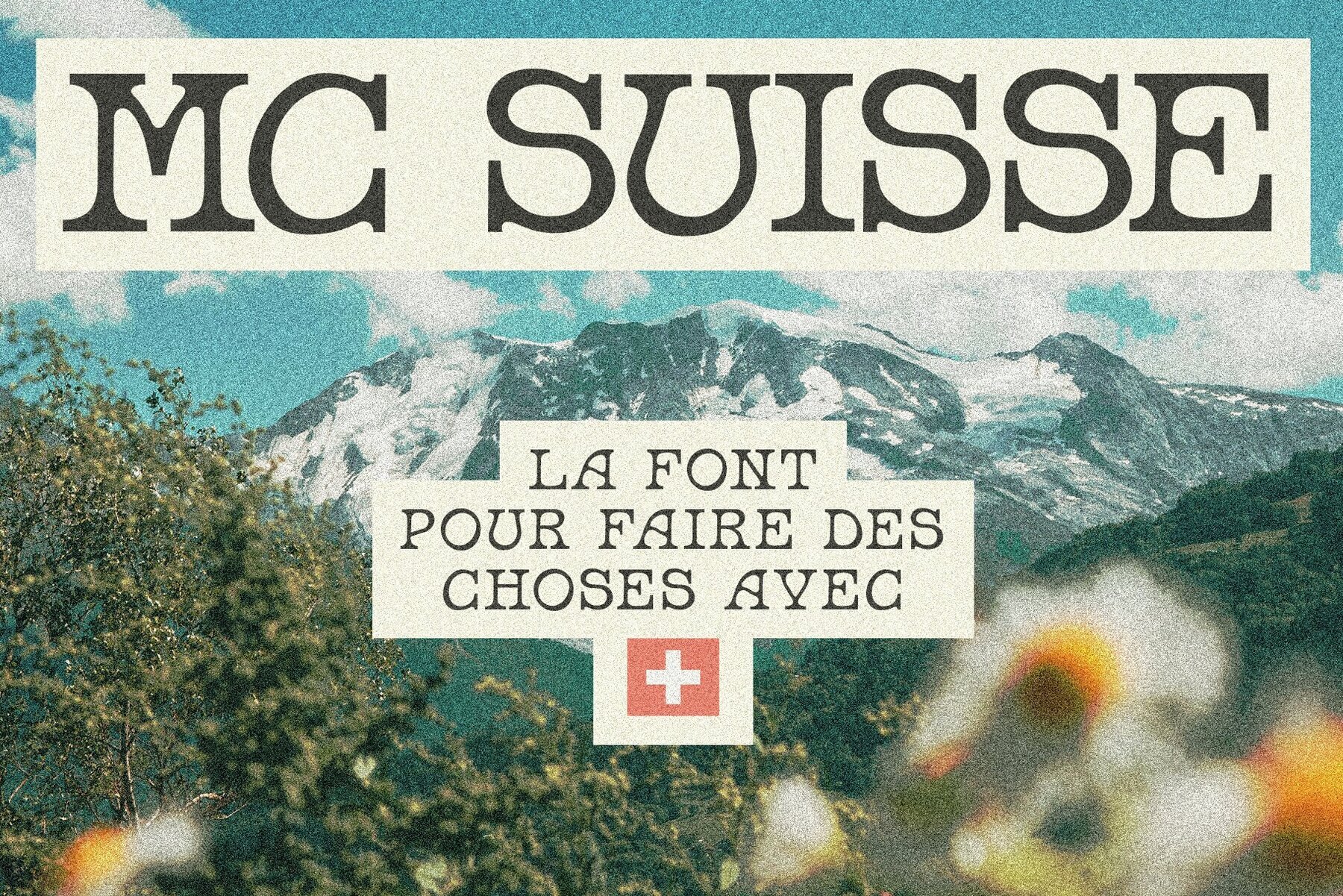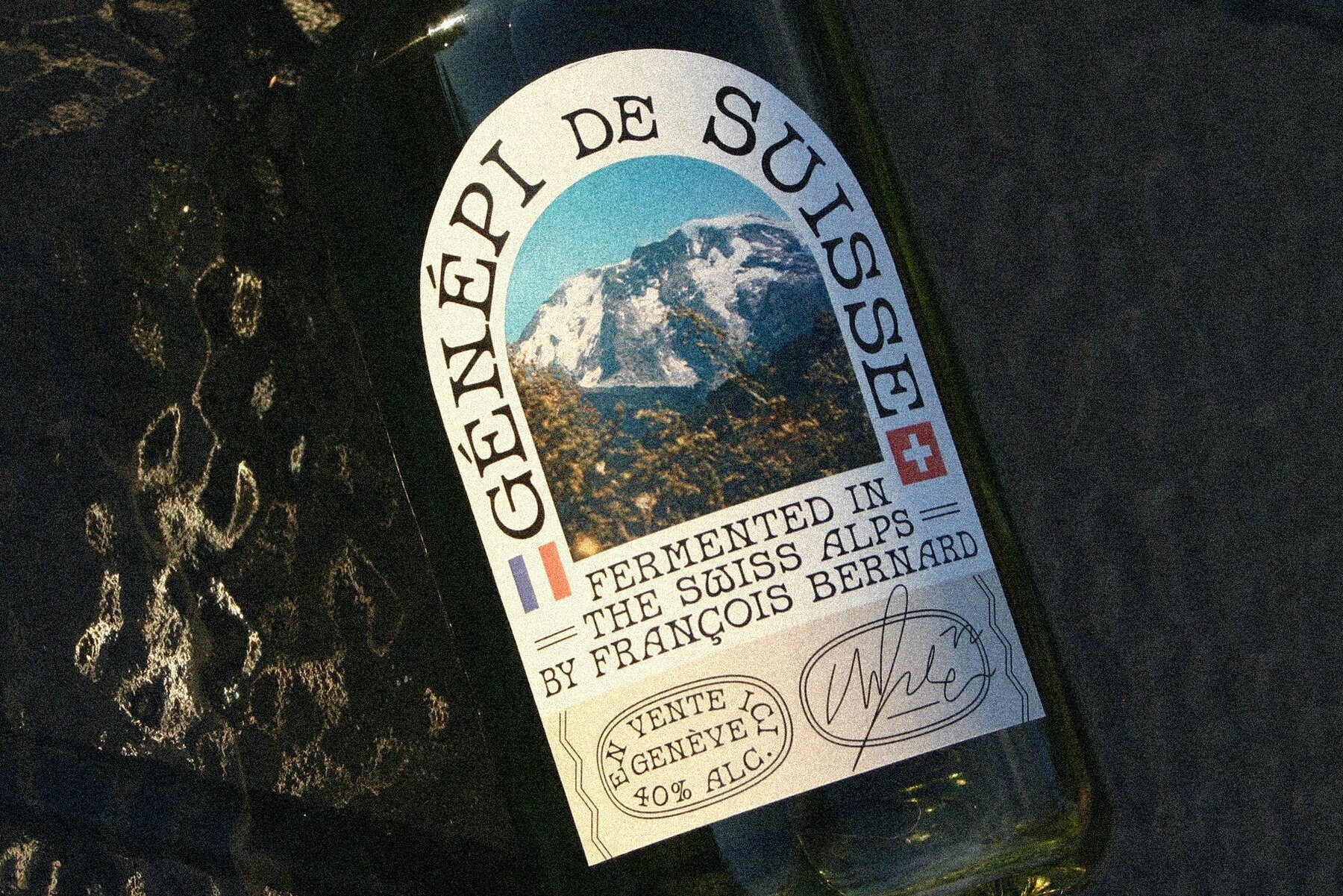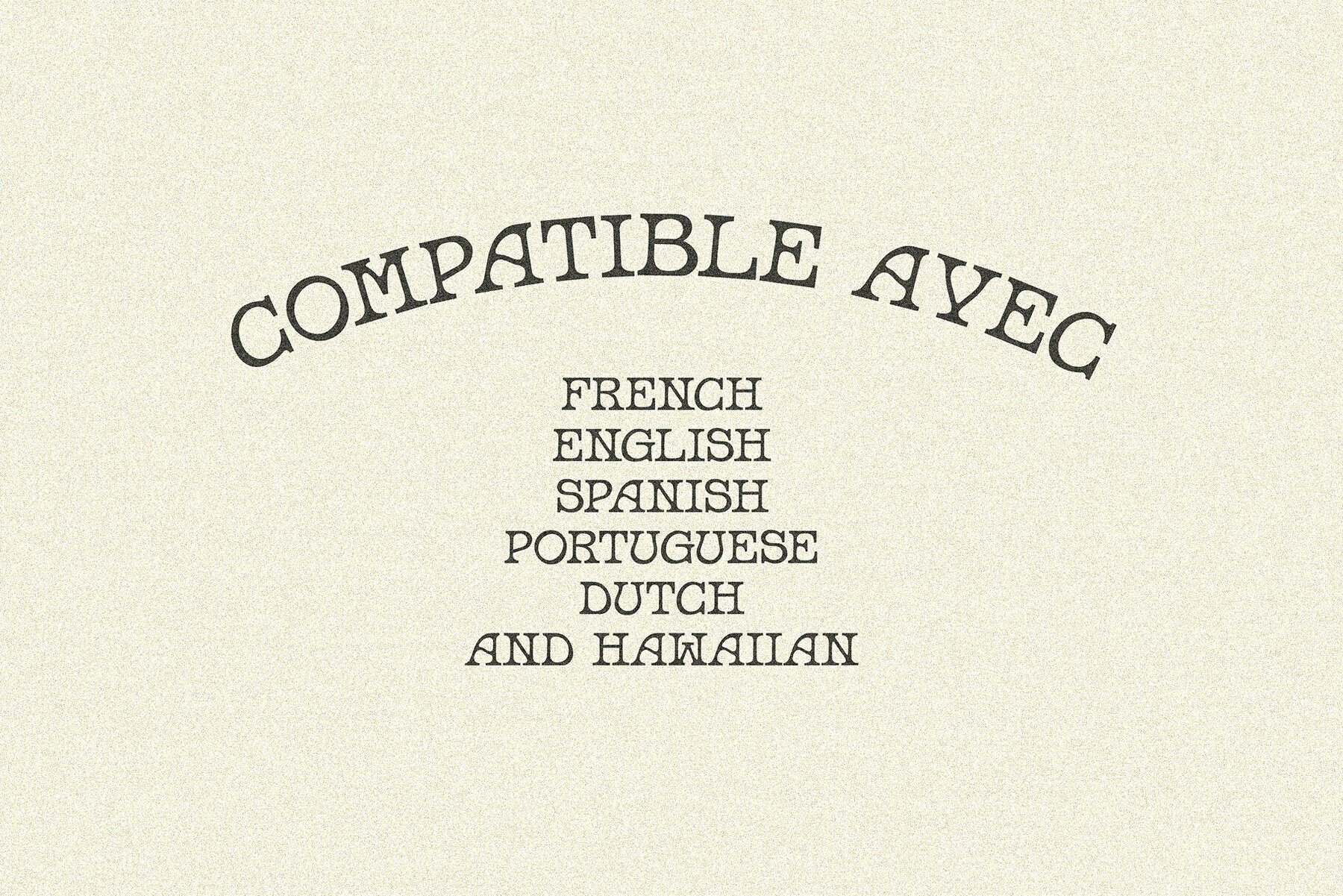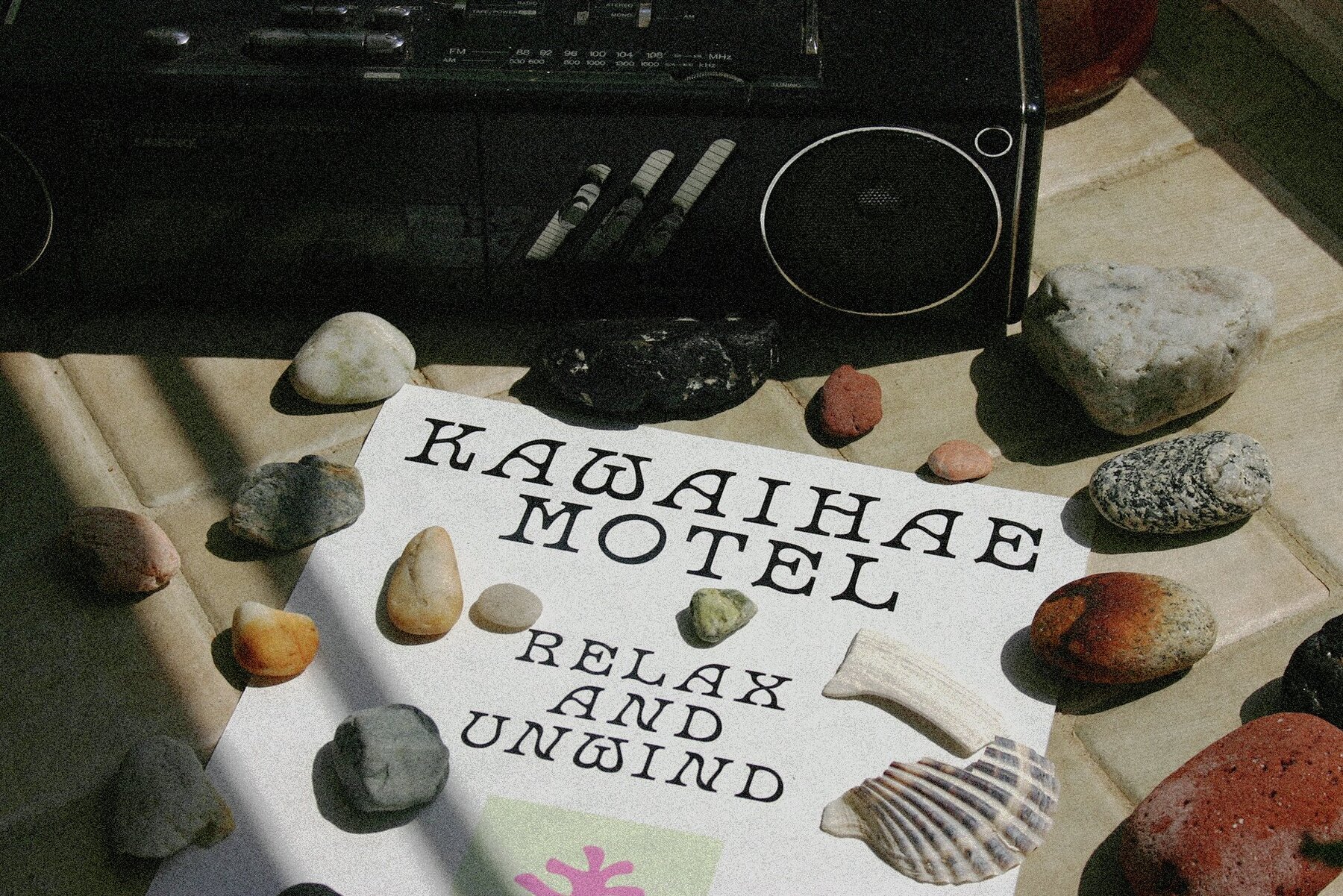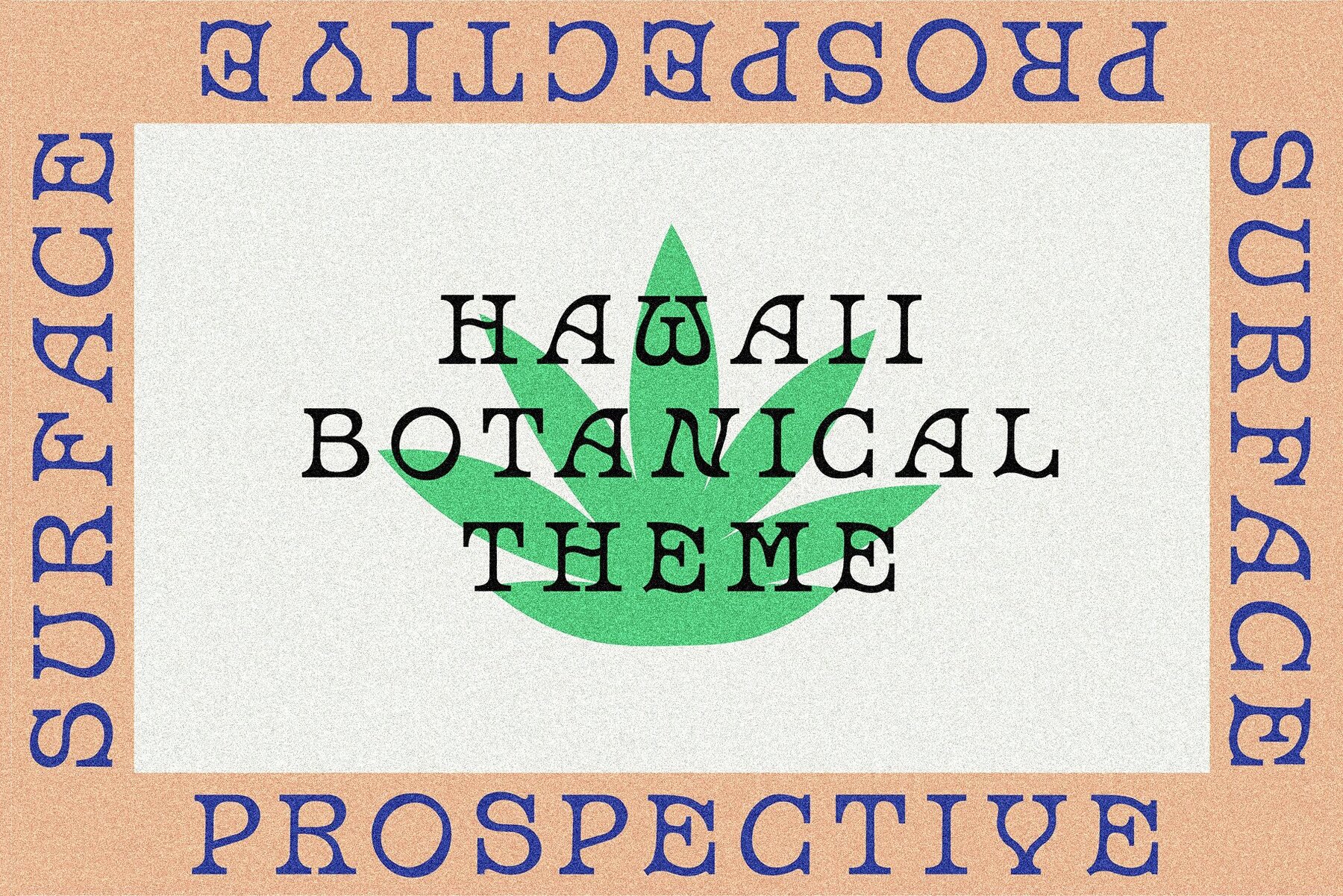
MC Suisse Font
MC Suisse
The MC Suisse font offers a versatile appeal ideal for diverse applications from posters and badges to liquor bottle labels. This all-caps serif display font features organic modularity that enhances your designs with its architectural and ornate style. Its distinctive retro charm makes it a prime choice for projects desiring a touch of art deco elegance.MC Suisse: Retro Charm with Geometric Precision